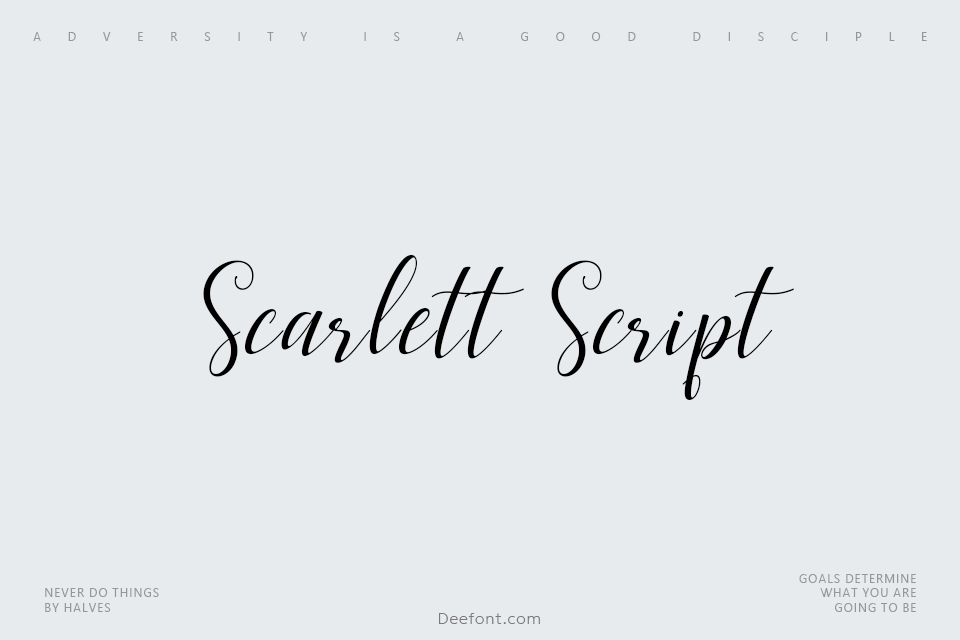
Scarlett Script Font
Scarlett Script is a modern and romantic calligraphy font designed for elegant and charming typography. This versatile script typeface features fluid strokes and sophisticated letterforms, making it ideal for invitations, logos, branding, and creative design projects. With its friendly feel and adaptable character, this font seamlessly fits a wide range of contexts, from formal occasions to contemporary creative applications. Supported for personal, non-profit, and charity projects.